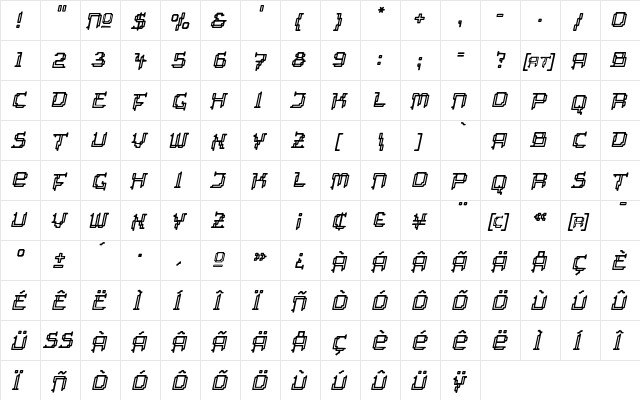
Tipi Electric Inline Italic
| Foundry | Schmalfett |
| Designer | Thomas Mettendorf |
Design Context for Tipi Electric Inline Typeface
Tipi Electric Inline channels digital-age aesthetics through its sharp, structured letterforms — ideal for brands that want to signal innovation. Its italic angle brings a sense of urgency and motion to the letterforms.